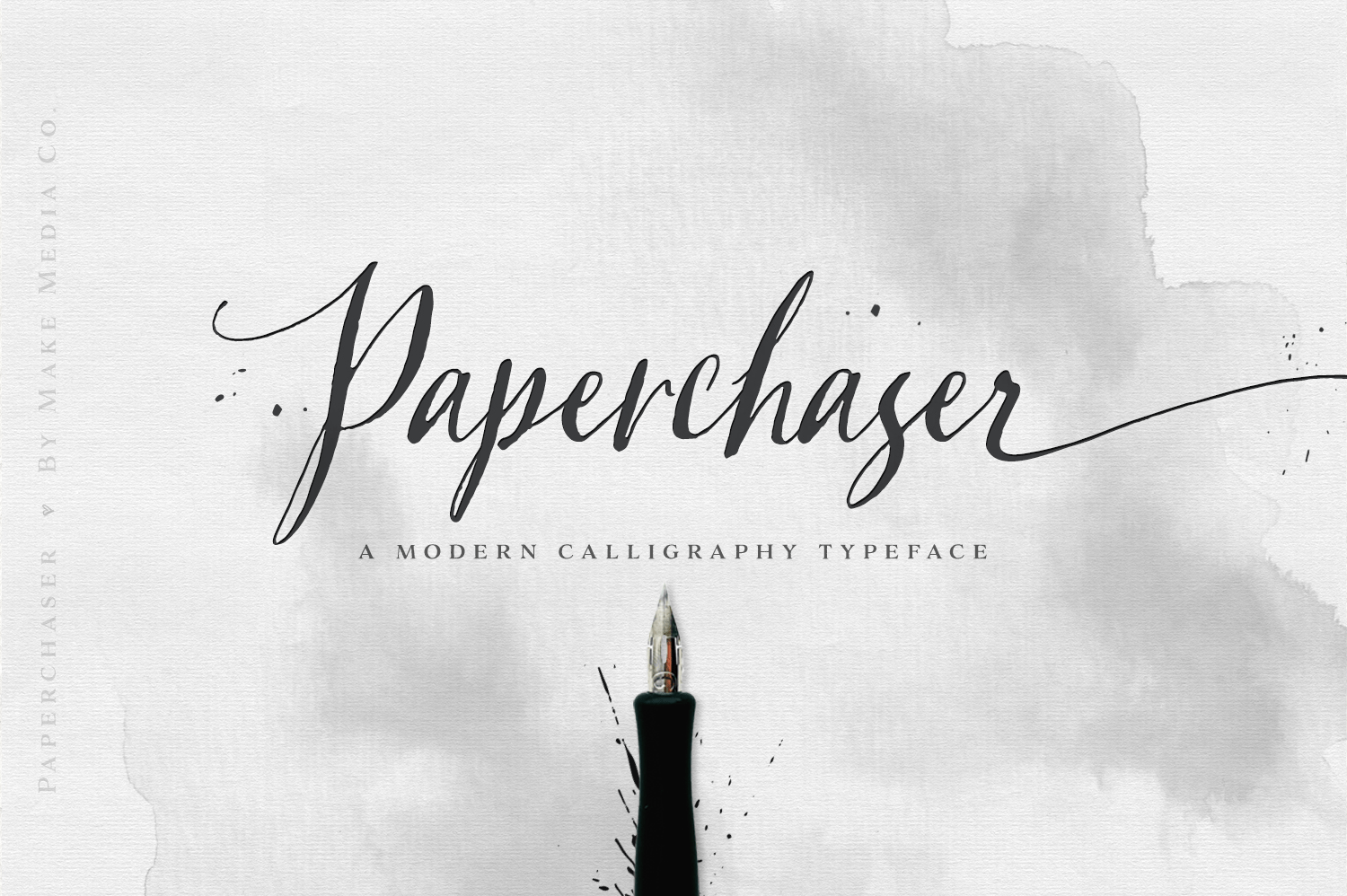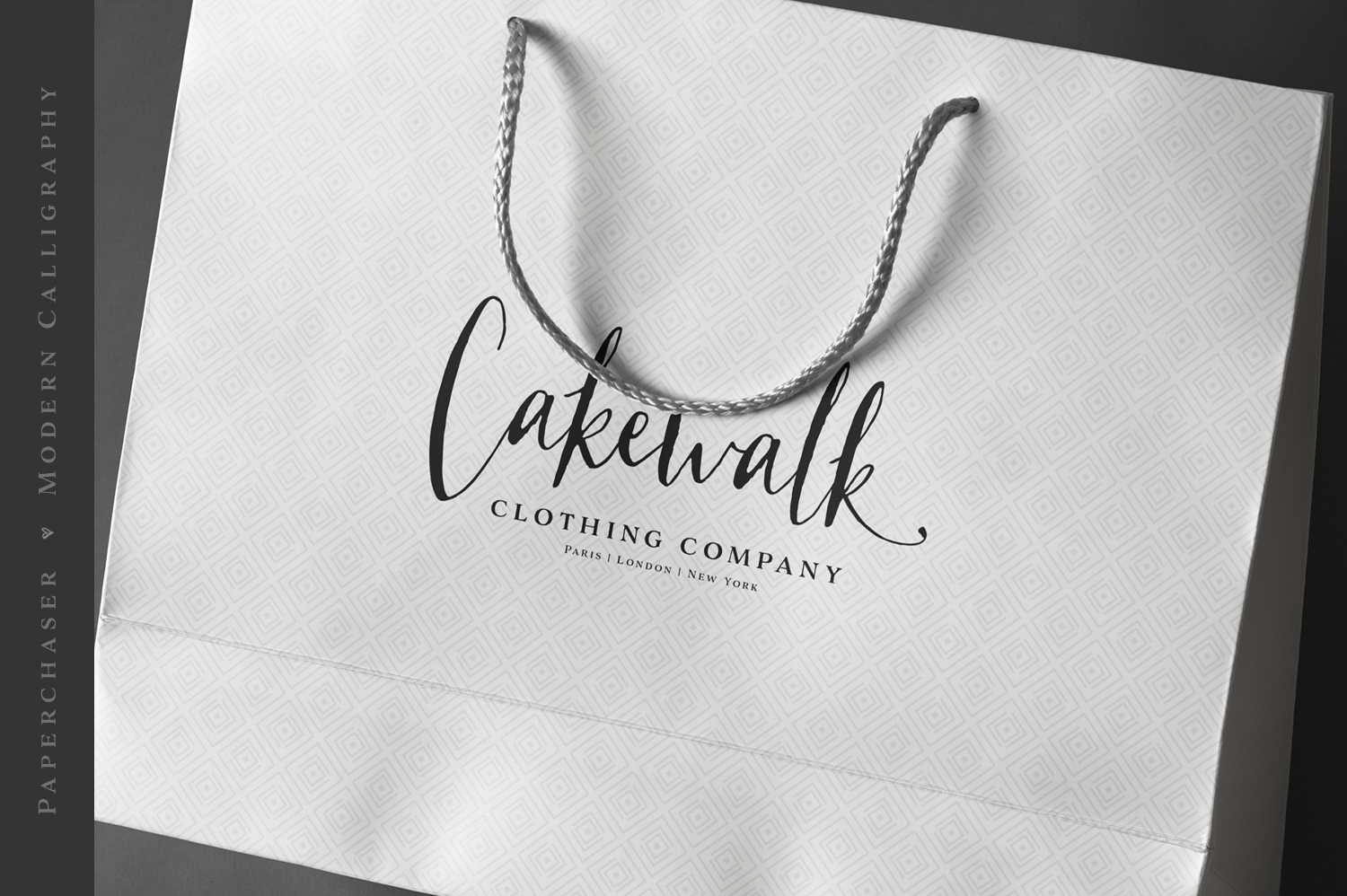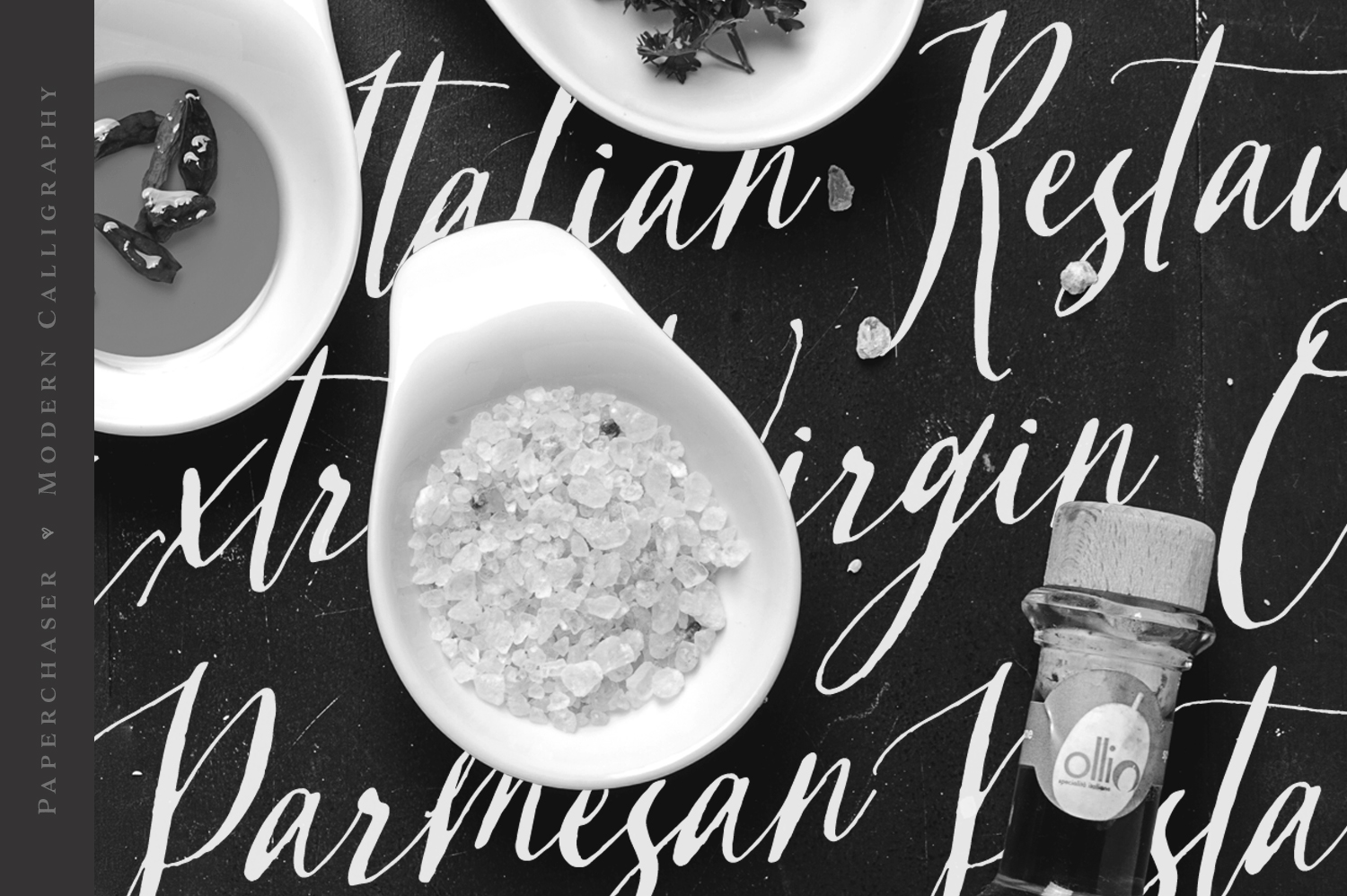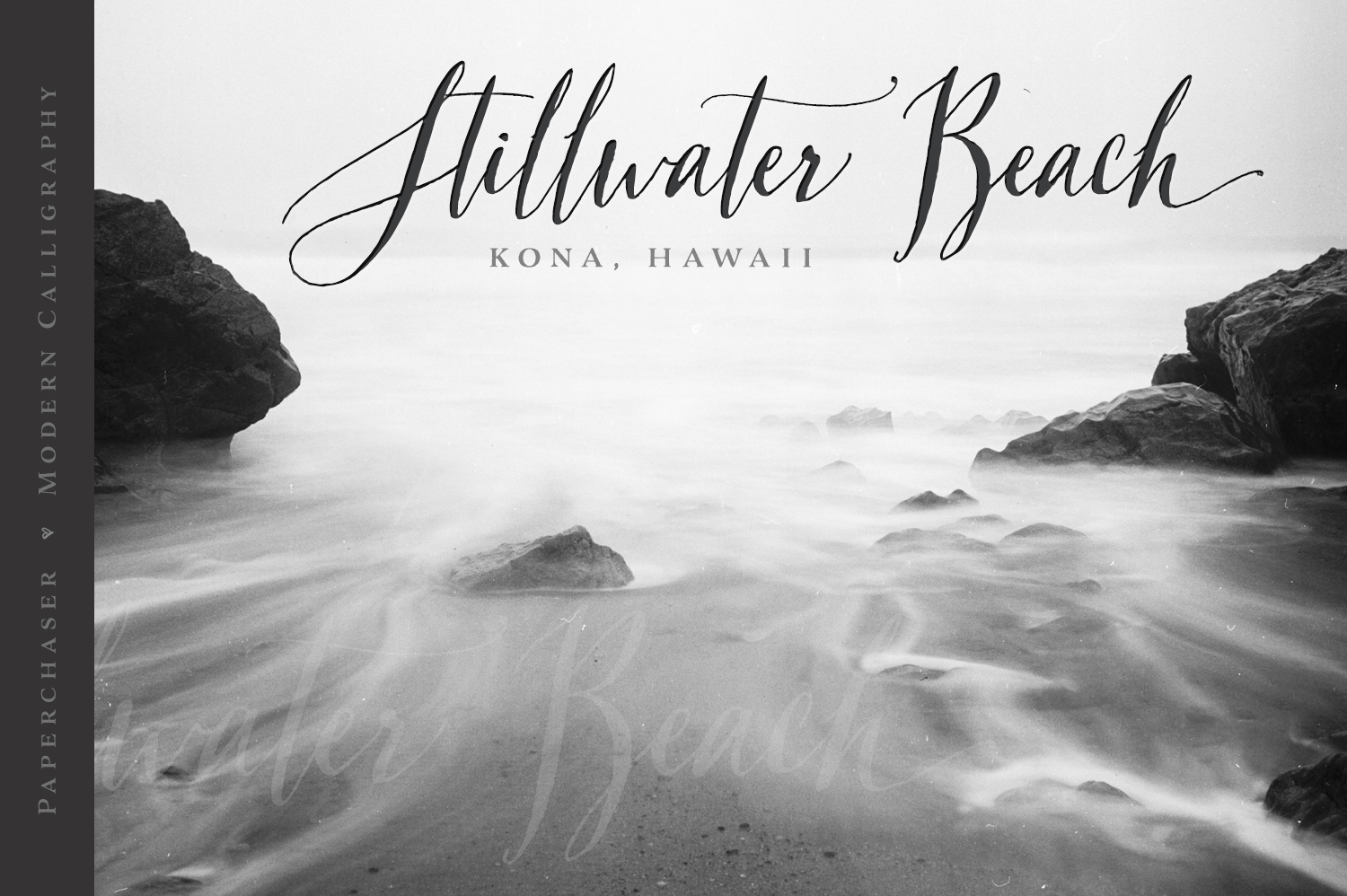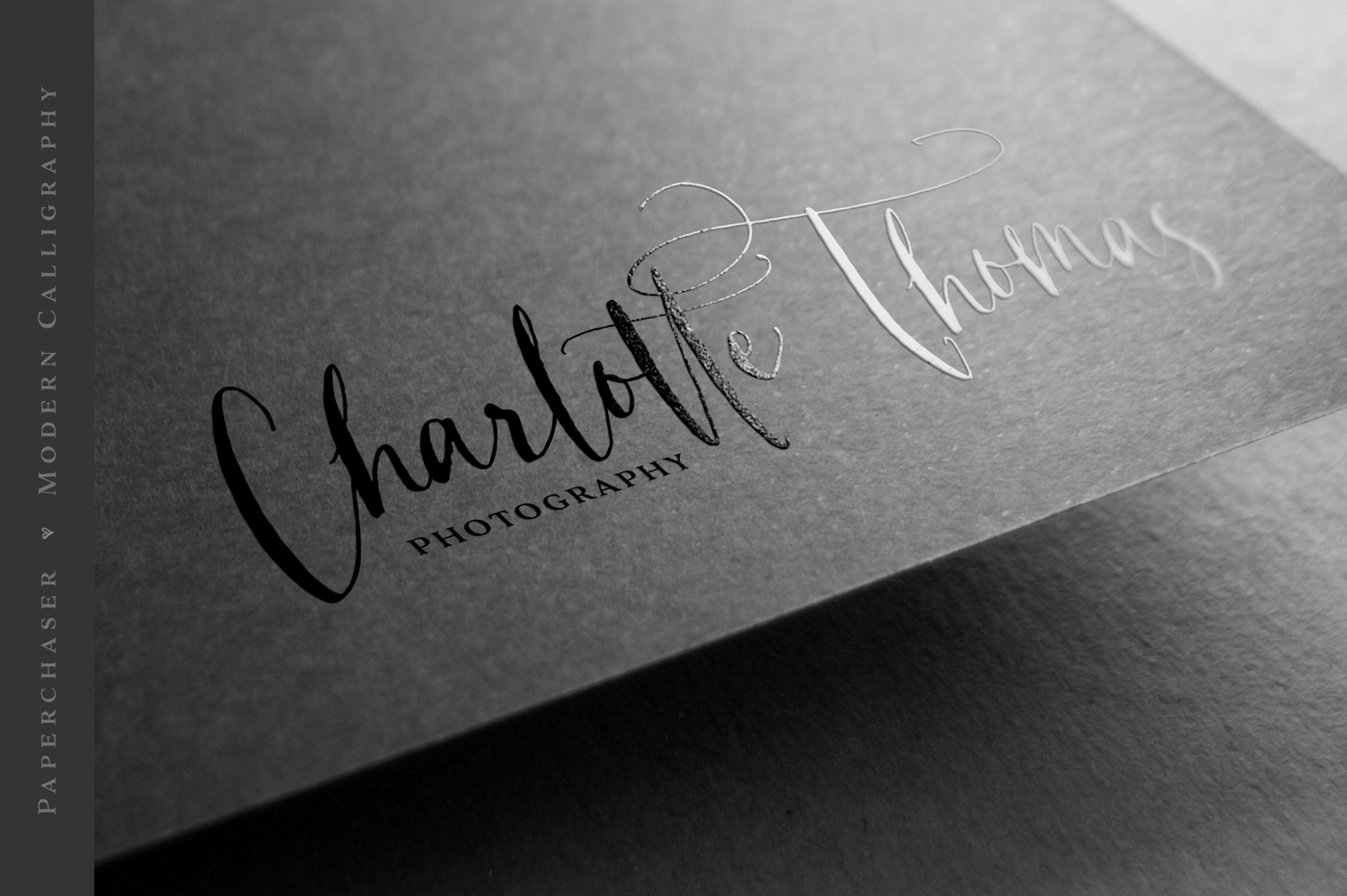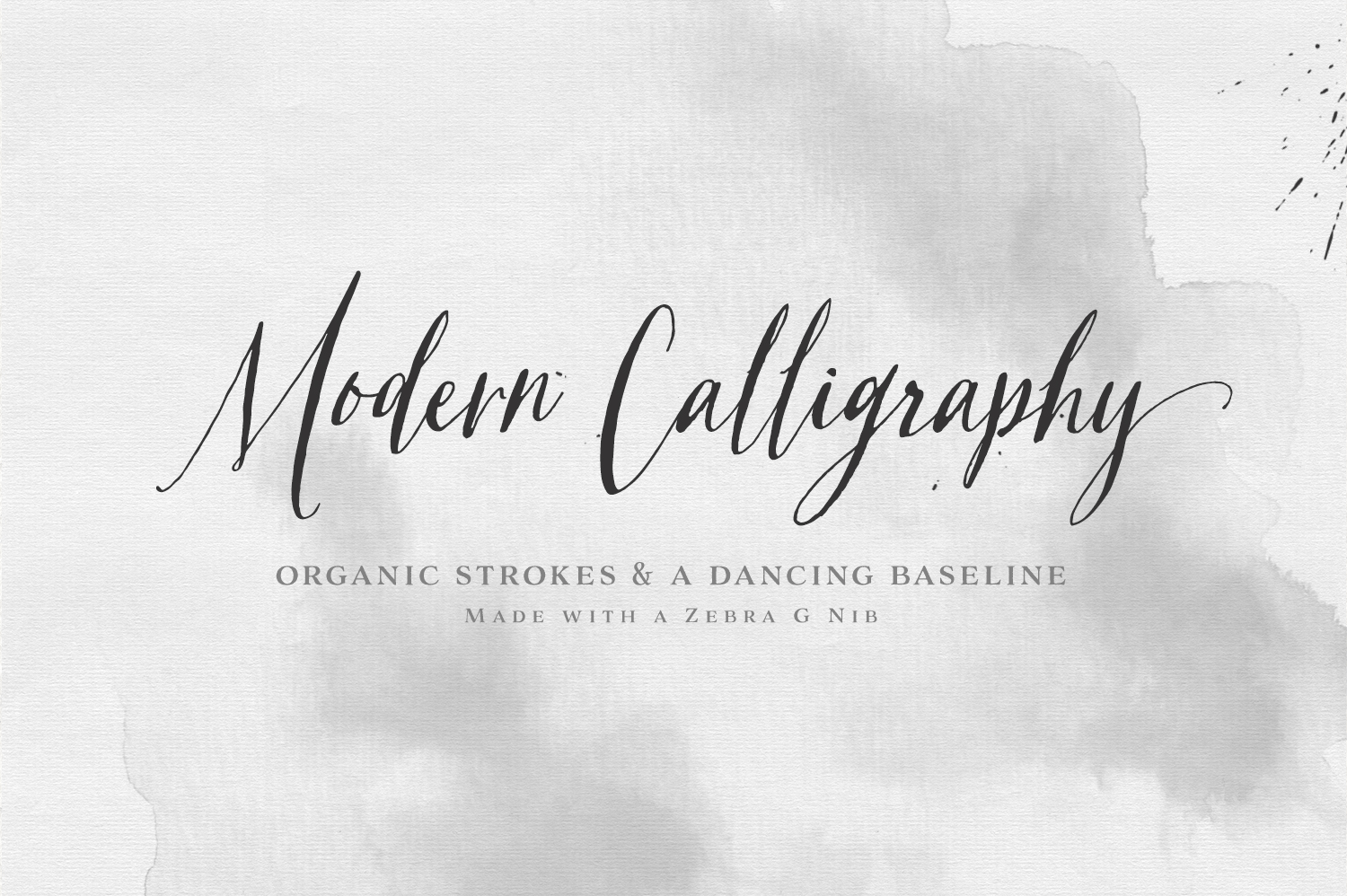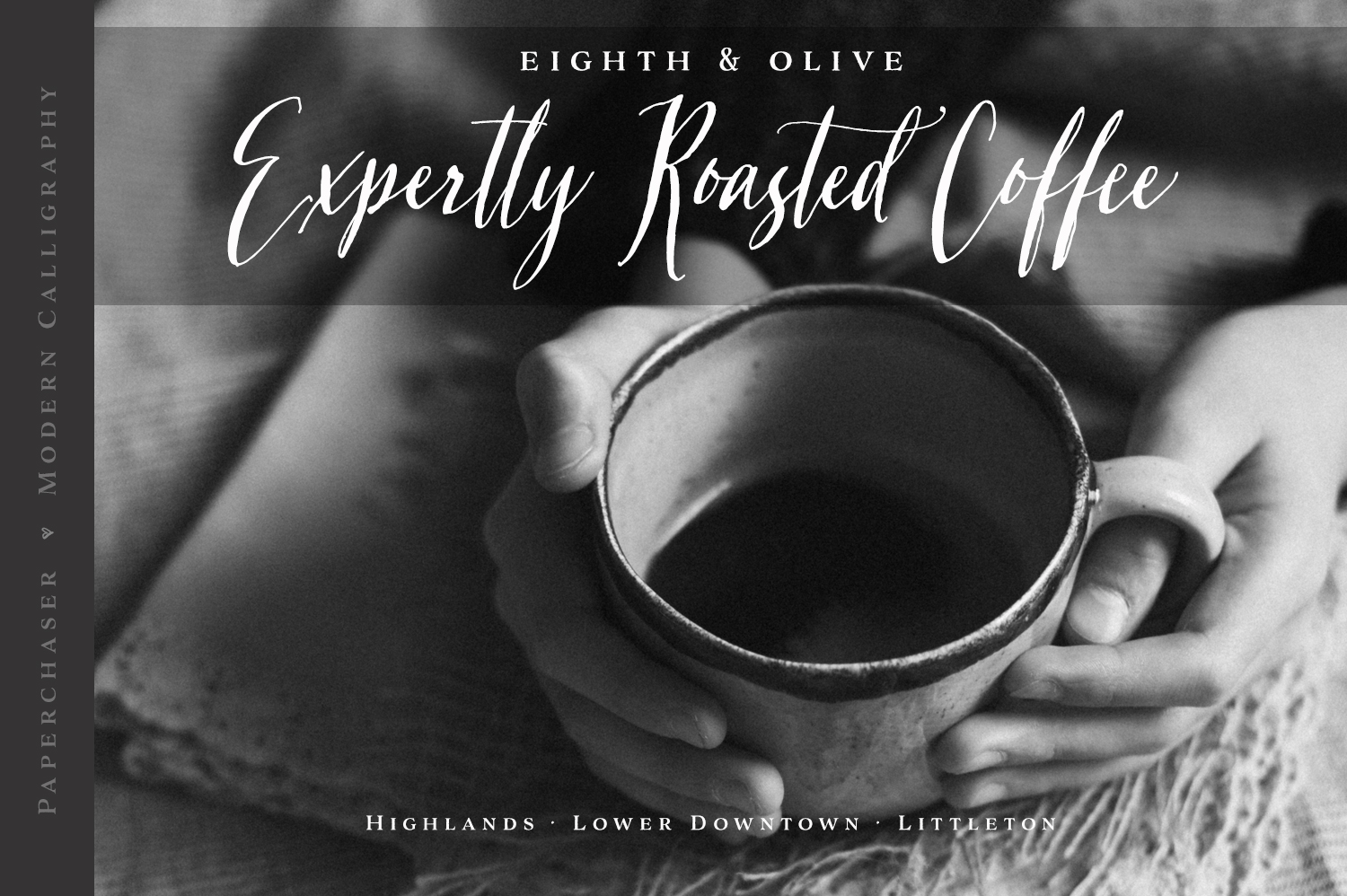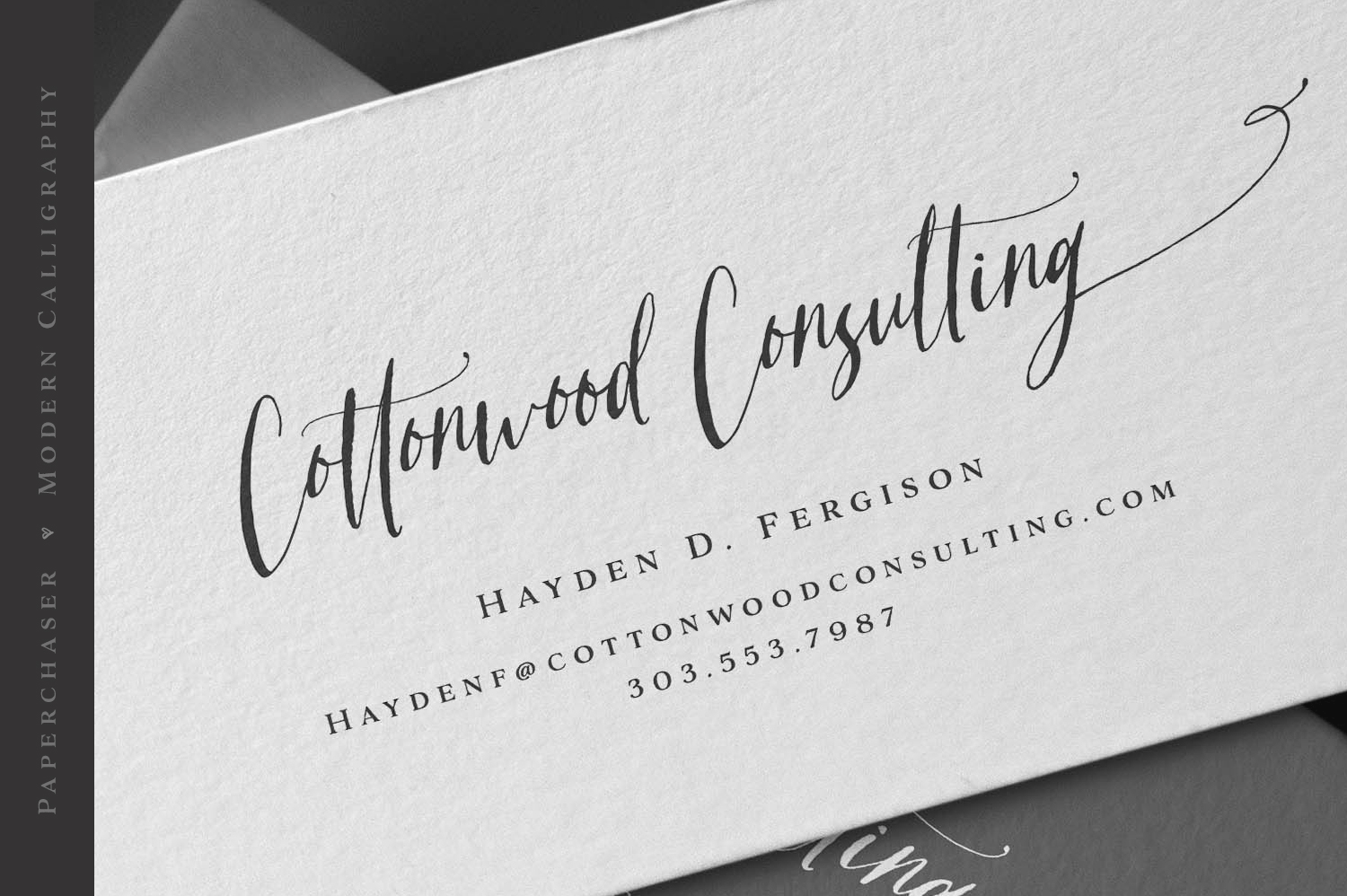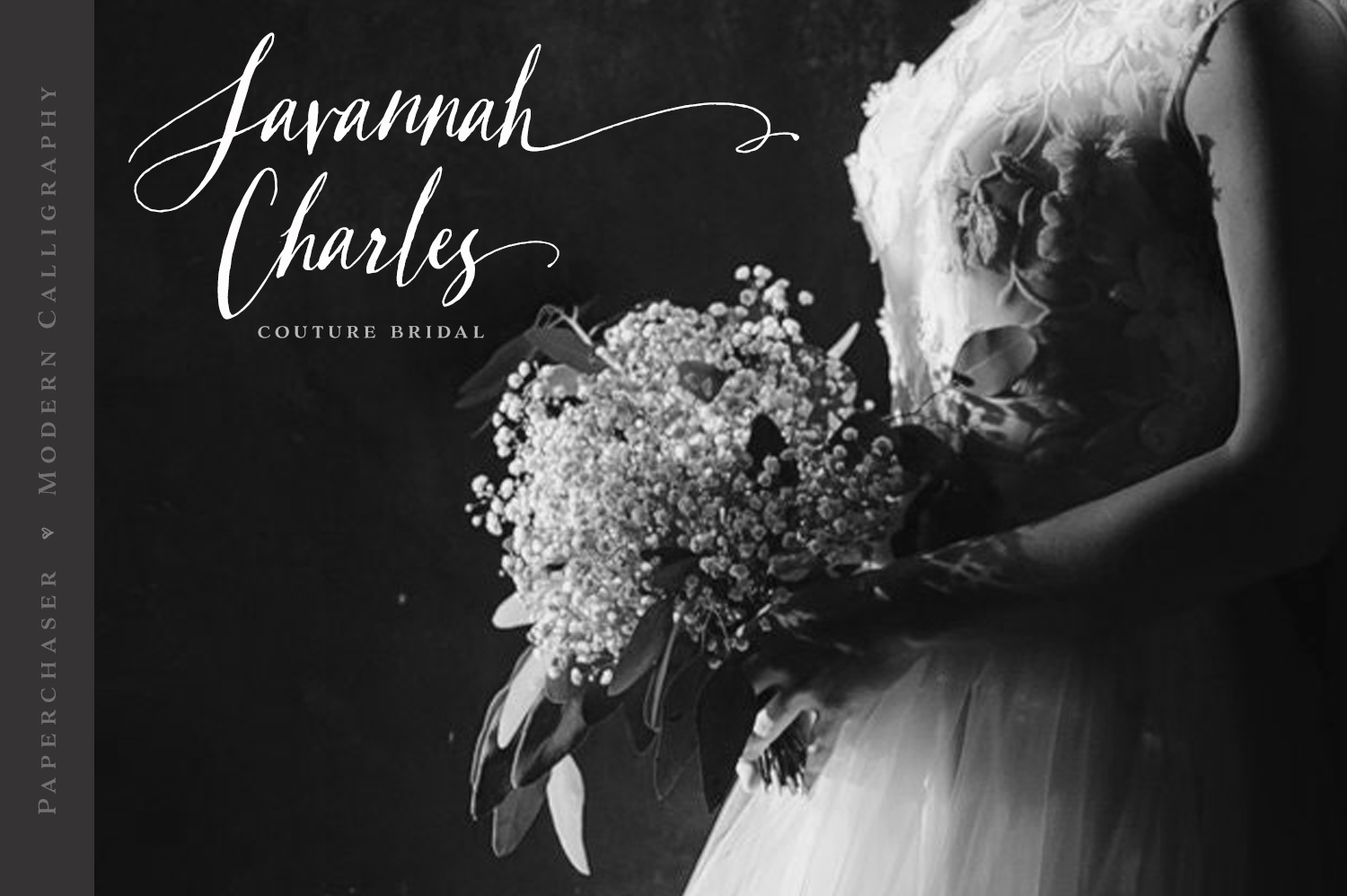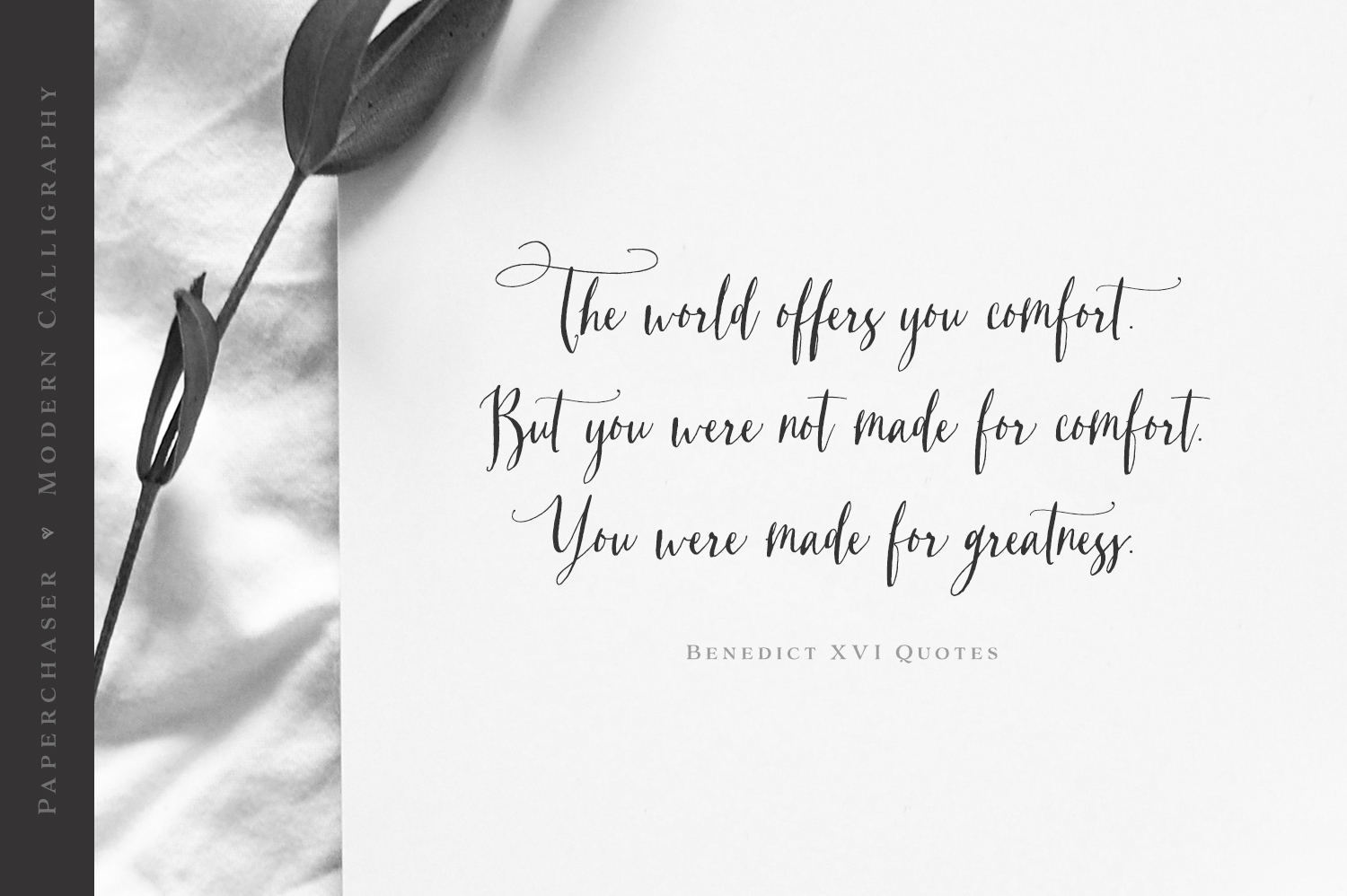
Paperchaser Calligraphy
Buy NowIntroducing Paperchaser Modern Calligraphy: With a Nikko G nib, a stack of paper, and some seriously inky fingers, Paperchaser Modern Calligraphy Type was born. Paperchaser boasts organic, free-flowing letters and a dancing baseline, making it a unique addition to everything from branding to book covers. Paperchaser comes in two versions (Standard & Upright) with over 100 alternates, ligatures & end characters for an authentic hand-inked appearance.
Includes select uppercase & lowercase alternates, two sets of end character options, 6 inky splatters, and standard OpenType ligatures.